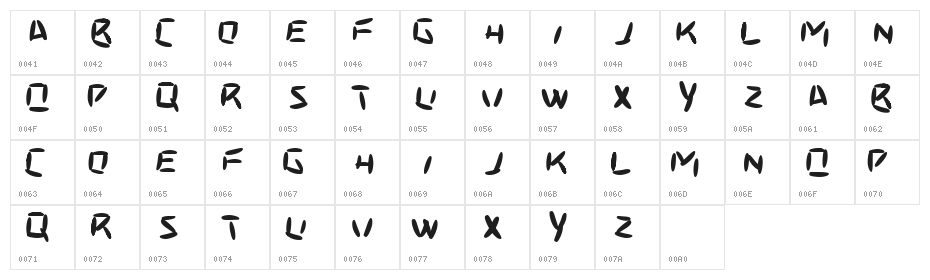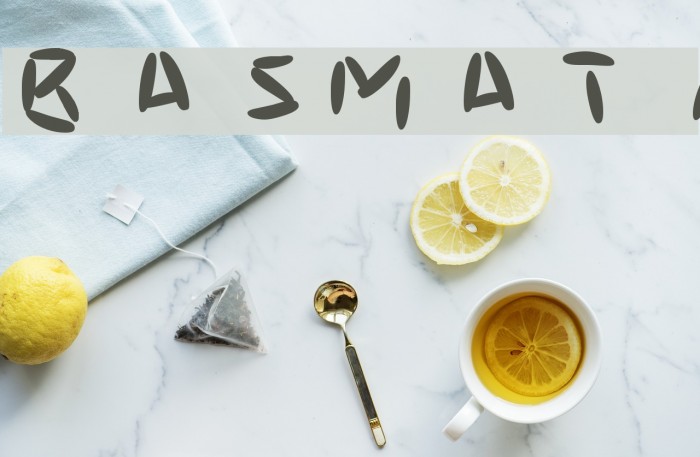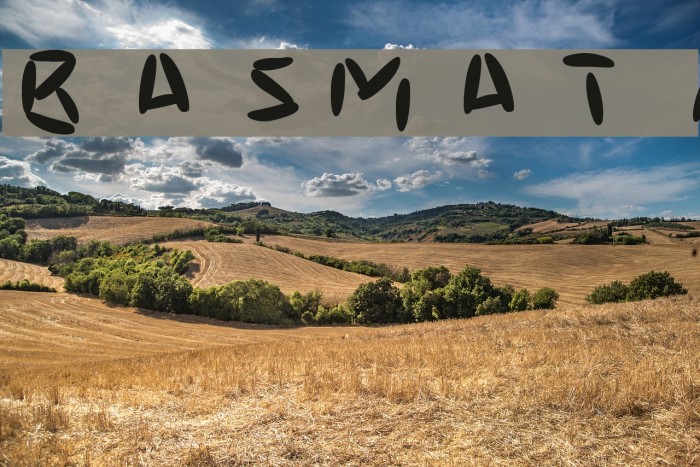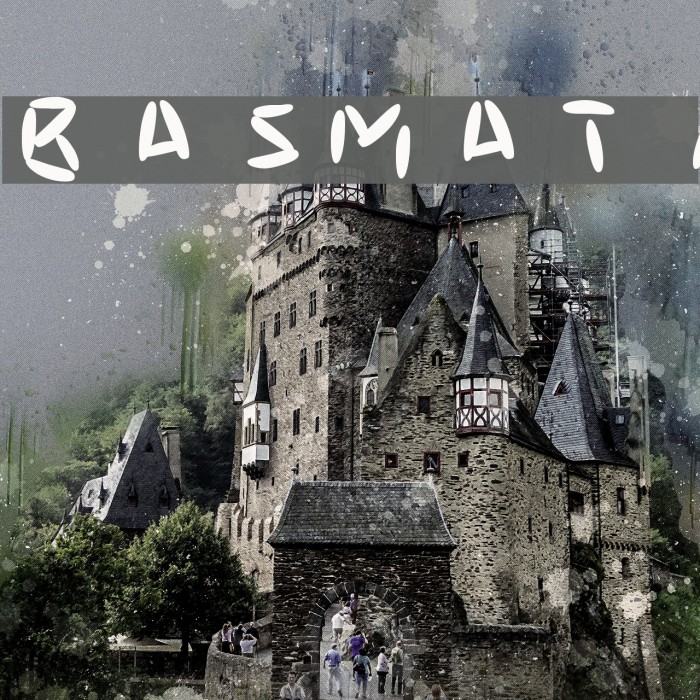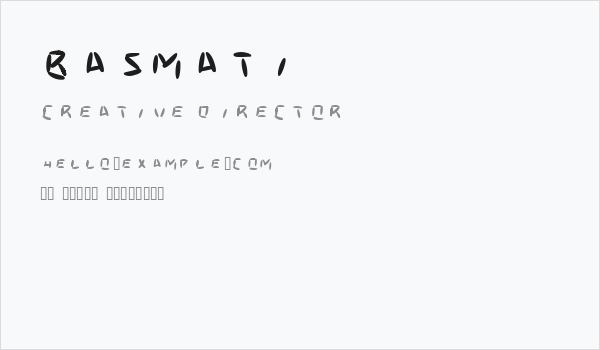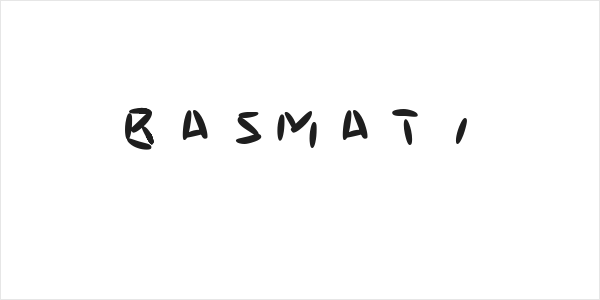
basmati Font
basmati Description
This font exhibits a playful and dynamic handwritten style, characterized by its irregular and organic strokes. The letters are slightly slanted, giving a sense of movement and informality. The uppercase and lowercase letters maintain a consistent style, with rounded edges and varying stroke widths that add to its casual appearance. The numbers and special characters follow the same aesthetic, ensuring a cohesive look across all characters. This font is ideal for projects that require a personal touch or a creative flair, such as invitations, greeting cards, or artistic branding.
Overall StyleCasual, Playful
Use CaseHeadlines, Artistic projects, Informal text
Proposed ProjectsIdeal for invitations, greeting cards, artistic branding, and creative projects.